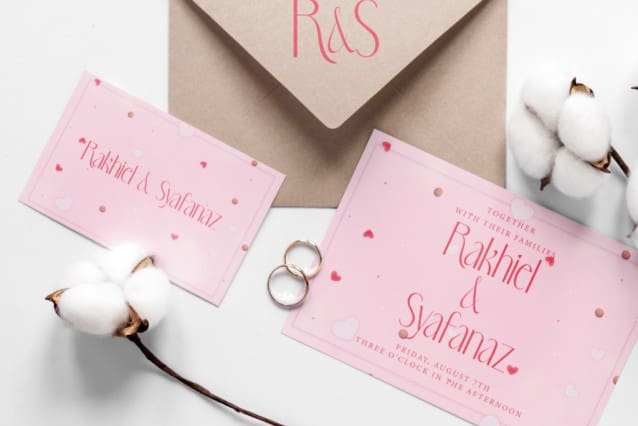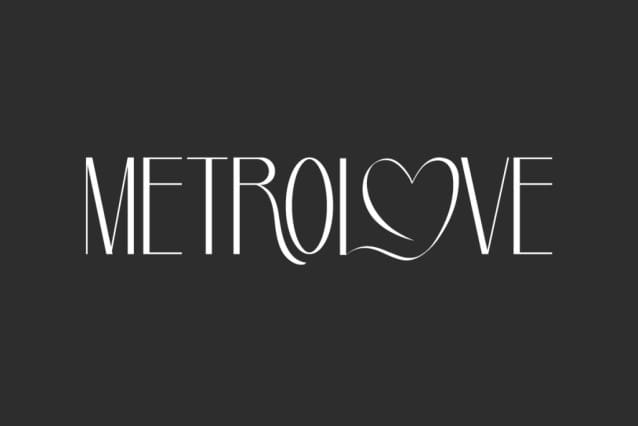
Metrolove Font
Metrolove Font is a stylish and sophisticated modern sans display font with romantic theme. This font has tall and thin letters so it’s very easy to read and perfect when paired with other font types. It will suits many designs, such as brochure, custom design, gift box, invitation, label, product packaging, quote, screen printing, signage, stationery, website, and more!
Metrolove Font includes full set of Uppercase and Lowercase Basic Characters, Numerals, Punctuation, and Ligature. You can find combination characters between letters and heart icons that can be used perfectly and will be suitable for many industries, such as accessories, advertising, beauty product, event or wedding organizer, fashion, florist, furniture, handicraft, perfume, resort, restaurant, etc.